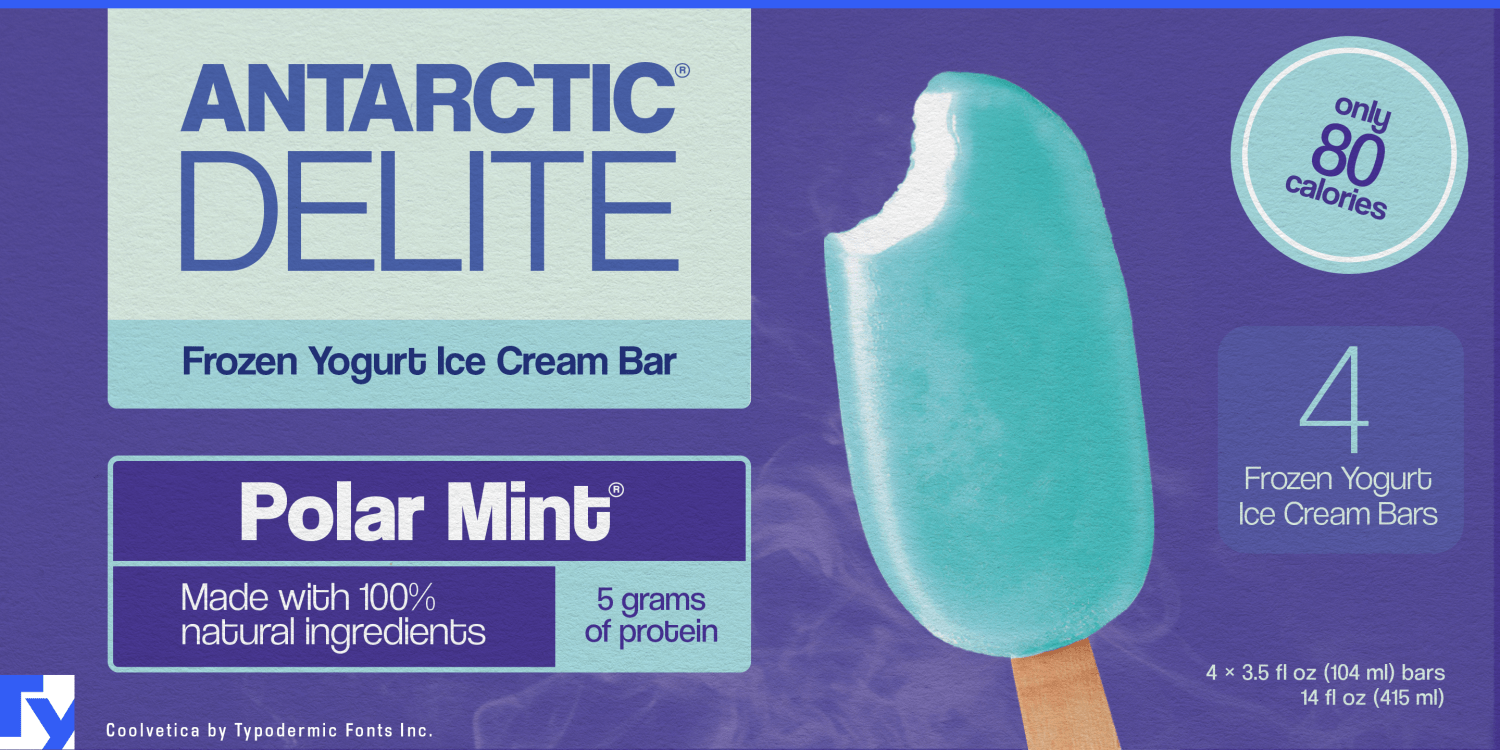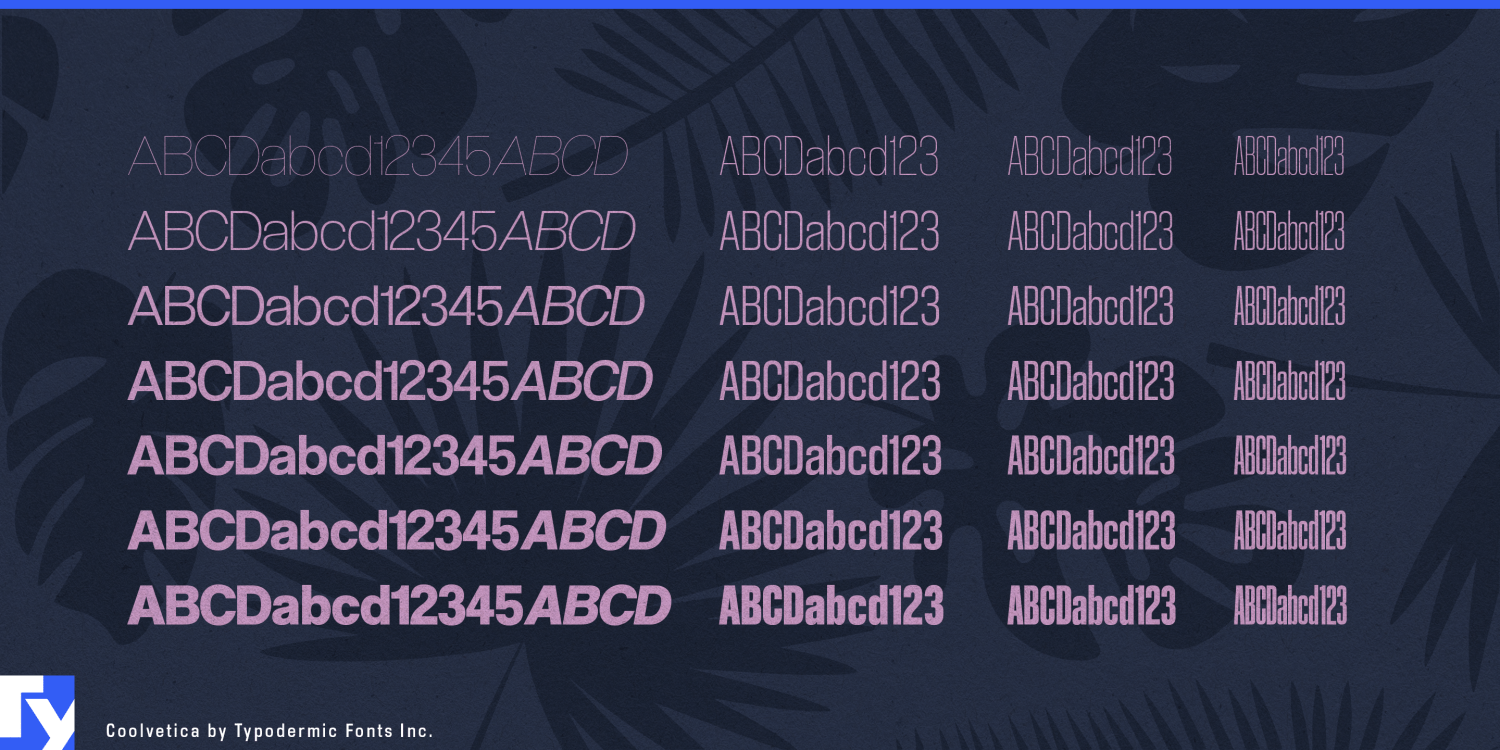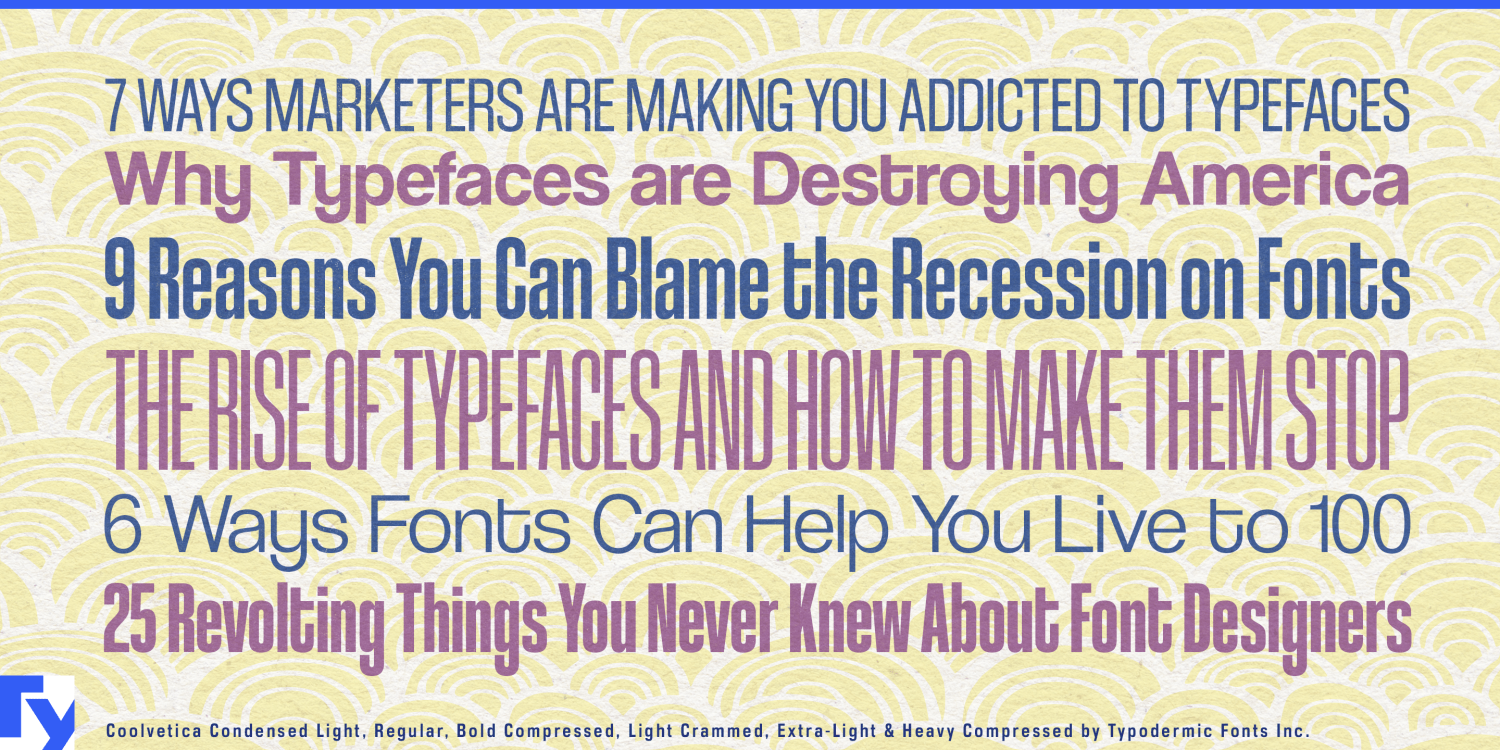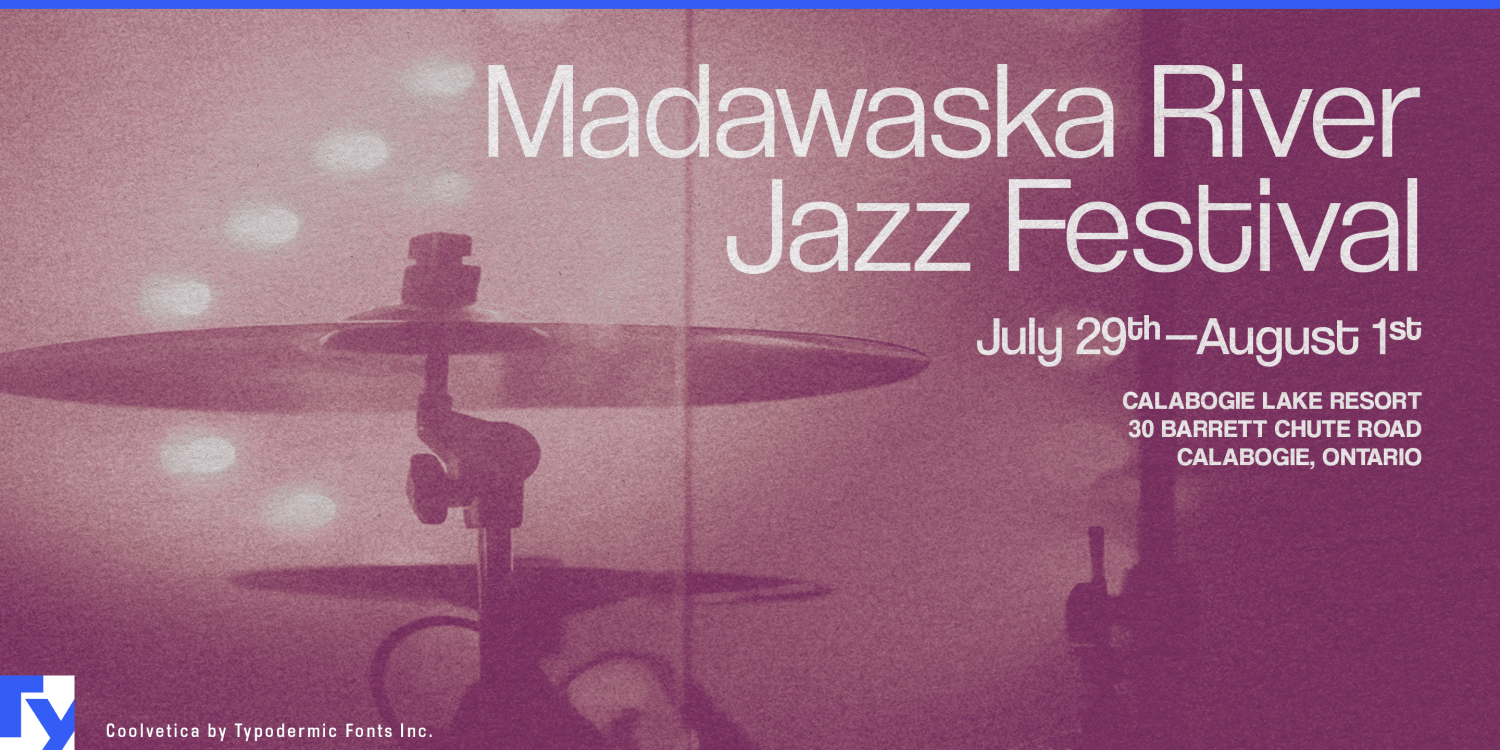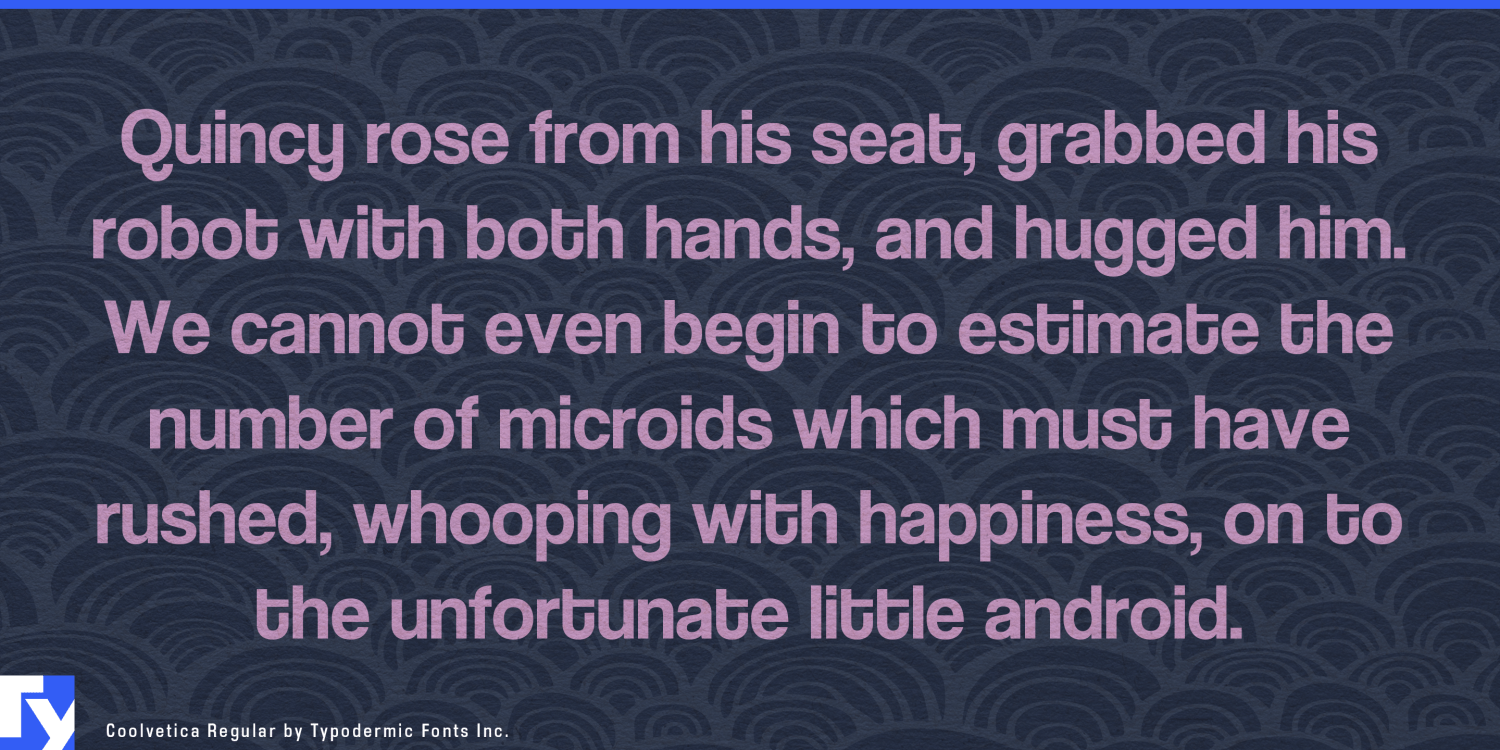
About Coolvetica
Step back into the groovy era of the 1970s with Coolvetica, a sans-serif typeface that captures the essence of a time when Helvetica reigned supreme—and everyone wanted to put their own spin on it. This isn’t just another font; it’s…